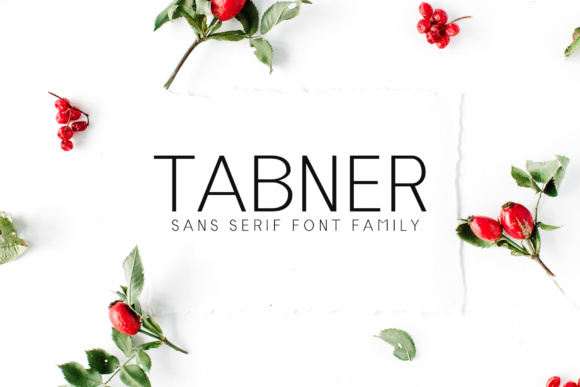
Unleash your creativity and create stunning visual experiences with Tabner Family Font, the ultimate sans serif font family designed to make your designs shine. This collection of 6 distinct weights, meticulously crafted by Creative Tacos, offers a versatile range of options for any project.
Embark on a typographic adventure with Tabner, your go-to font for modern and minimalist designs. Whether you're creating eye-catching logos, captivating headlines, or elegant banners, Tabner's clean lines and sharp edges will leave a lasting impression.
Transform your templates and stationery into works of art with Tabner's unwavering quality and timeless appeal. This font family exudes sophistication, adding a touch of class to any project. Experience the beauty of all-caps typography, where wide-set spacing creates a sense of grandeur, or embrace the timeless elegance of lowercase letters for a classic look.
Dive into Tabner's world and let your creativity flourish. This versatile font family is perfect for a wide range of projects, including:
- Logos: Create distinctive and memorable logos that reflect your brand's personality.
- Headlines: Make a bold statement with striking headlines that demand attention.
- Banners: Design captivating banners that command attention and convey your message effectively.
- Templates: Craft stunning templates for presentations, flyers, brochures, and more.
- Stationery: Add a touch of sophistication to your business cards, letterheads, and envelopes.
With Tabner Family Font, the possibilities are endless. Its timeless beauty and unwavering quality will elevate your designs to new heights. Experience the magic of typography and let Tabner transform your creative visions into reality.